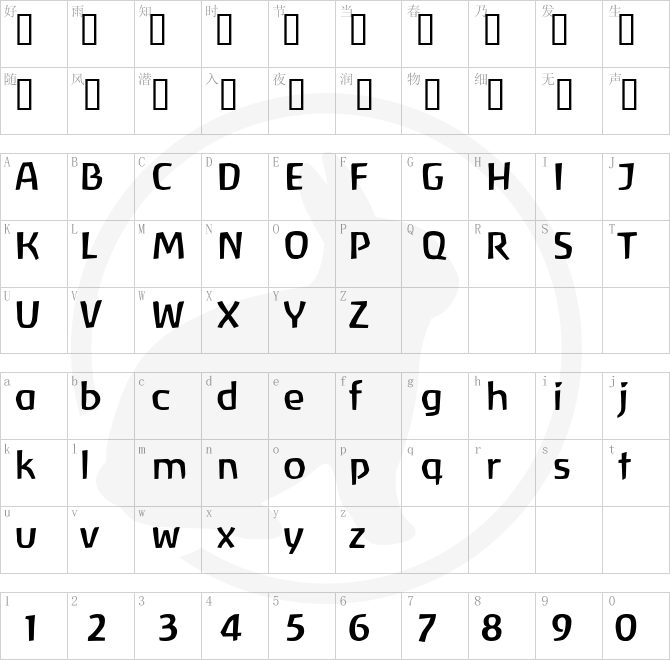
- Font Name:Baar Antropos Aidfont
Lutz Baar, Sweden
Baar-Antropos-Aidfont.ttf is a very beautiful artistic font, Baar-Antropos-Aidfont.ttf is widely used in the design and printing of various books and pictures,Baar-Antropos-Aidfont.ttf has a strong visual impact,Baar-Antropos-Aidfont.ttf is a commonly used font in newspapers, magazines and books, and is used in posters, e-commerce Poster design, store design, logo design, font design and other fields.Baar-Antropos-Aidfont.